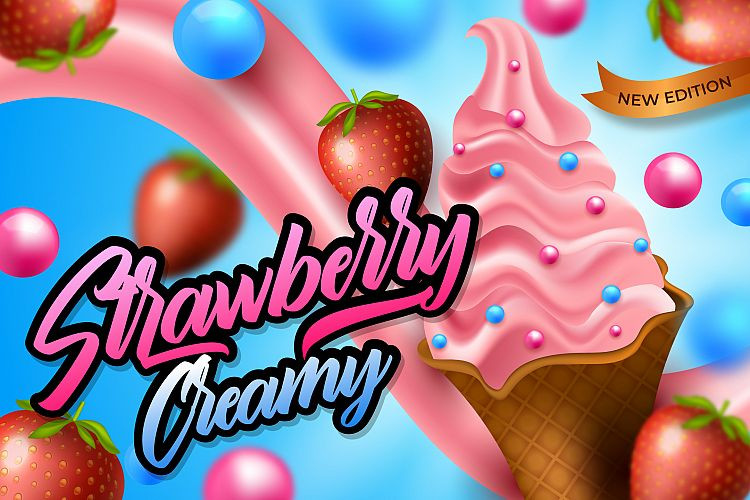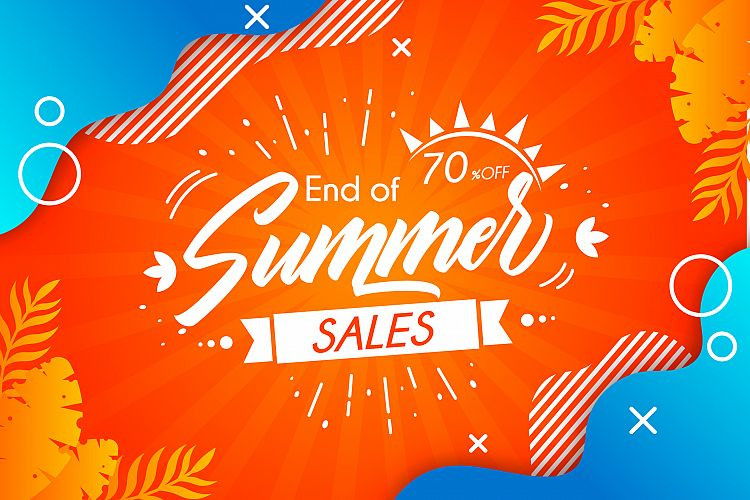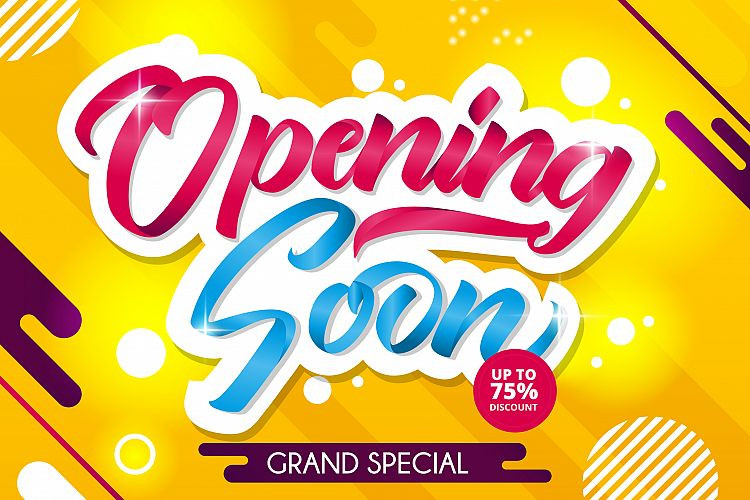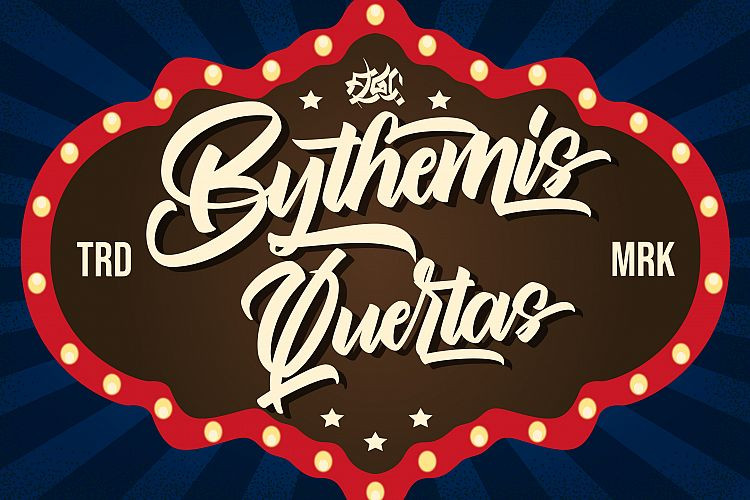
Bythemis Quertas Script Font
Bythemis Quertas Script – Demo Font
Introducing Bythemis Quertas Font. A new freshly painted, bold script font! a classy and elegant handwritten font with beautiful swashes. Get inspired by its unique look, and turn any design idea into a true standout! It is was designed by FallenGraphic Std. It’s a modern bold script font. It’s a clean, bouncy, beautiful font, simple and funny. it can be incorporated into many designs including quotes text, wedding invitations, posters and you can create custom cards to give to your friends and family.